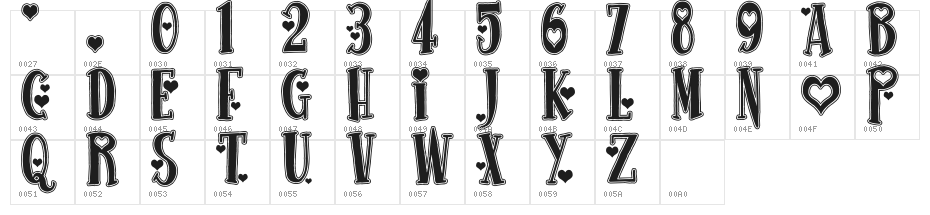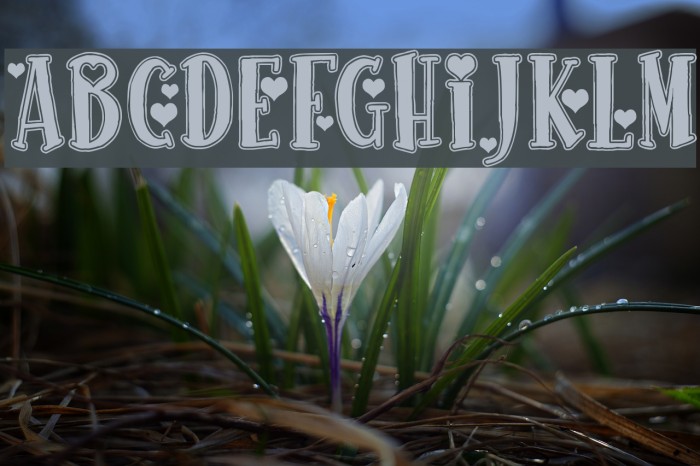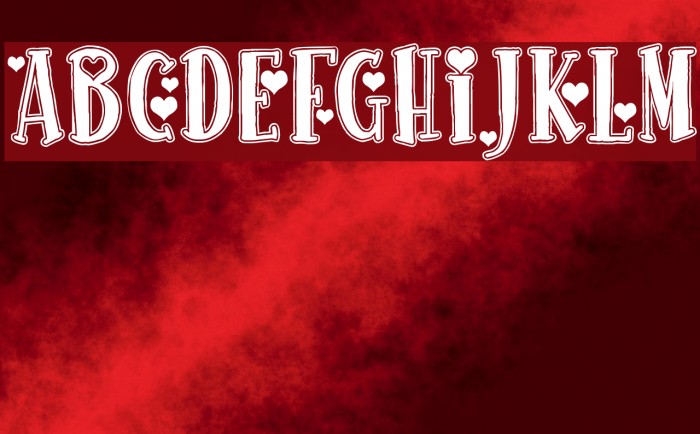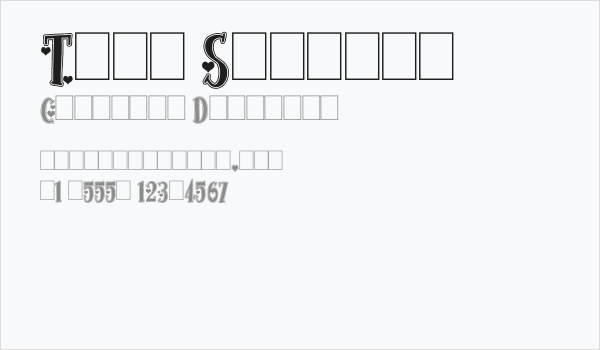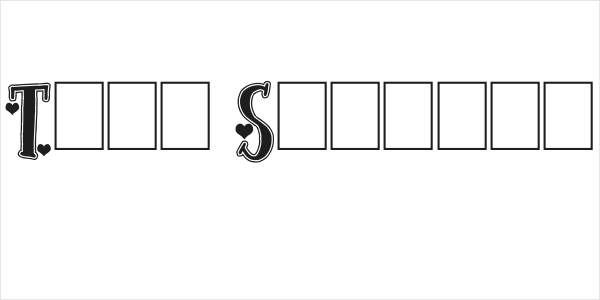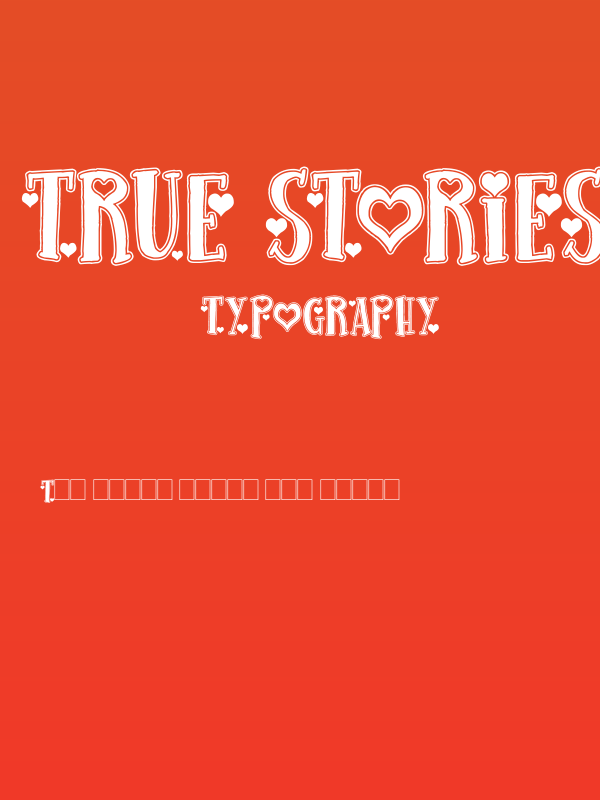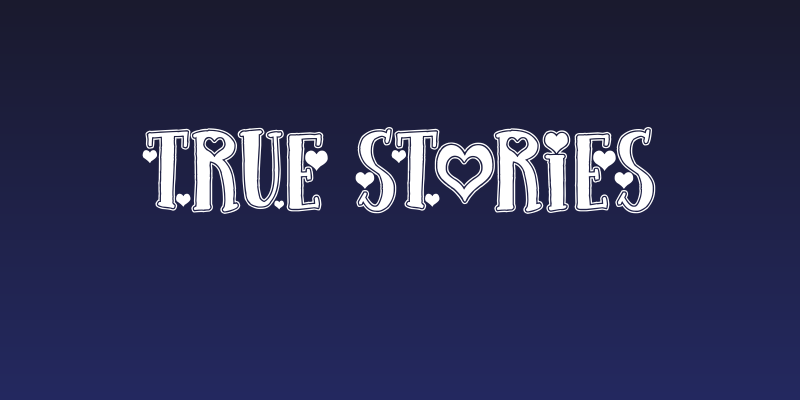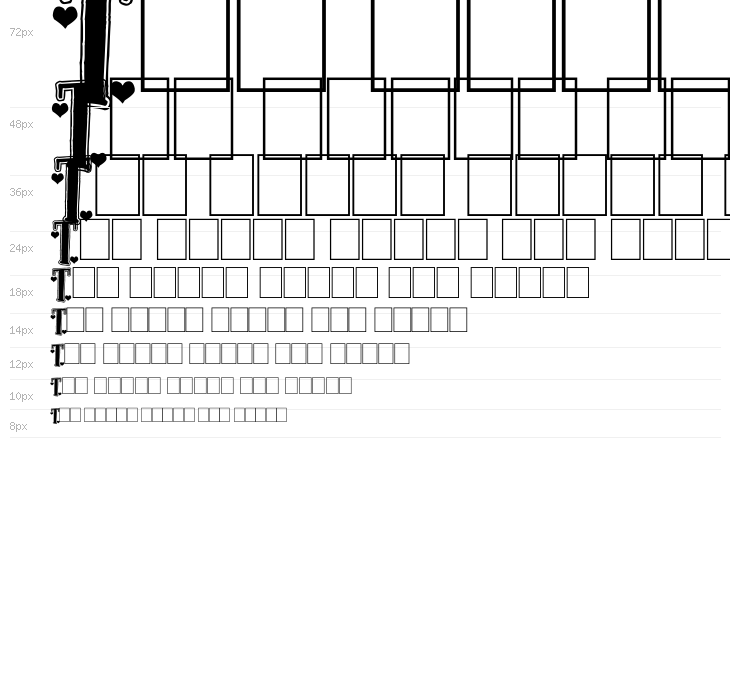
True Stories Font
True Stories Description
This decorative font features bold, uppercase letters with a playful and whimsical style. Each character is adorned with heart motifs, either within the letter itself or as a decorative element nearby. The strokes are thick and consistent, giving the font a strong presence. The heart shapes add a unique, romantic touch, making it ideal for designs that require a fun and loving aesthetic. The numbers follow the same style, ensuring a cohesive look across all characters. This font is perfect for projects that aim to convey warmth and affection.
| Proposed Projects | Ideal for Valentine's Day cards, wedding invitations, love-themed posters, and playful branding. |